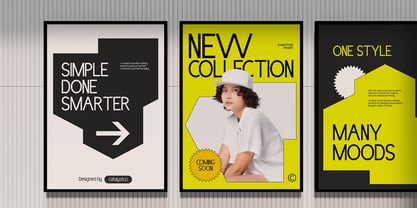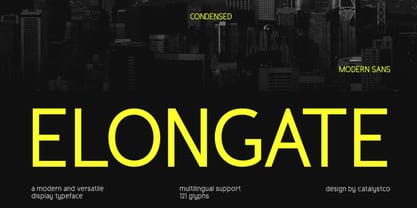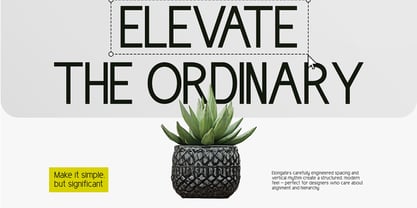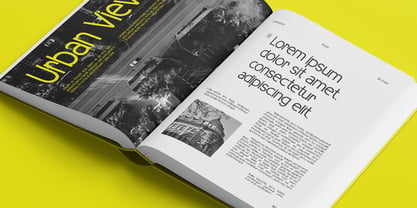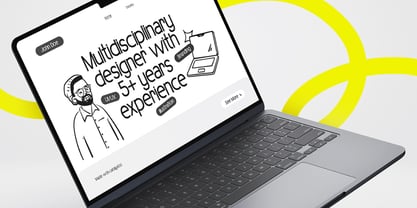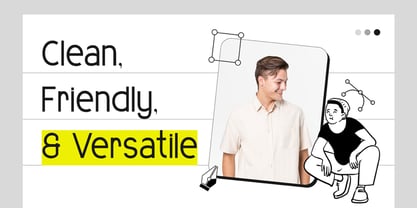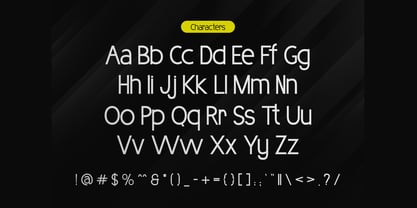
Elongate
Elongate is a modern condensed sans serif typeface designed with clean geometry and refined vertical proportions. Built for clarity and strong visual impact, this font combines narrow structure with smooth curves, making it ideal for contemporary branding and digital interfaces. Elongate is a modern condensed sans serif typeface designed with clean geometry and refined vertical proportions. Built for clarity and strong visual impact, this font combines narrow structure with smooth curves, making it ideal for contemporary branding and digital interfaces.